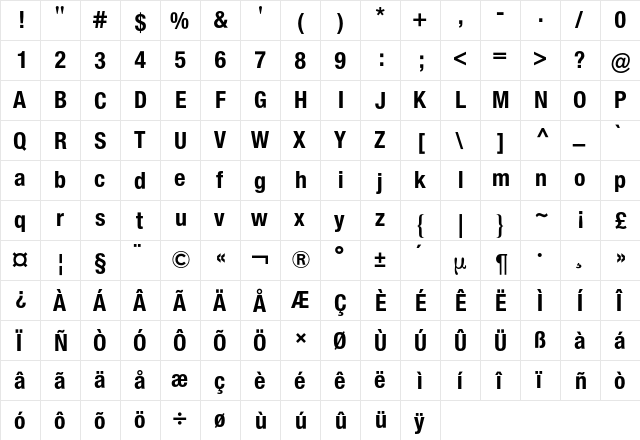
Neue Helvetica Condensed BQ Regular
Design Context for Neue Helvetica Condensed BQ Typeface
Neue Helvetica Condensed BQ takes a measured approach to typography — its balanced proportions and neutral character make it a reliable workhorse for both digital and print work. The condensed width makes it efficient for tight spaces without sacrificing legibility.
Pro Tip: Use Neue Helvetica Condensed BQ in both headline and body roles to test its range before committing to a single application.